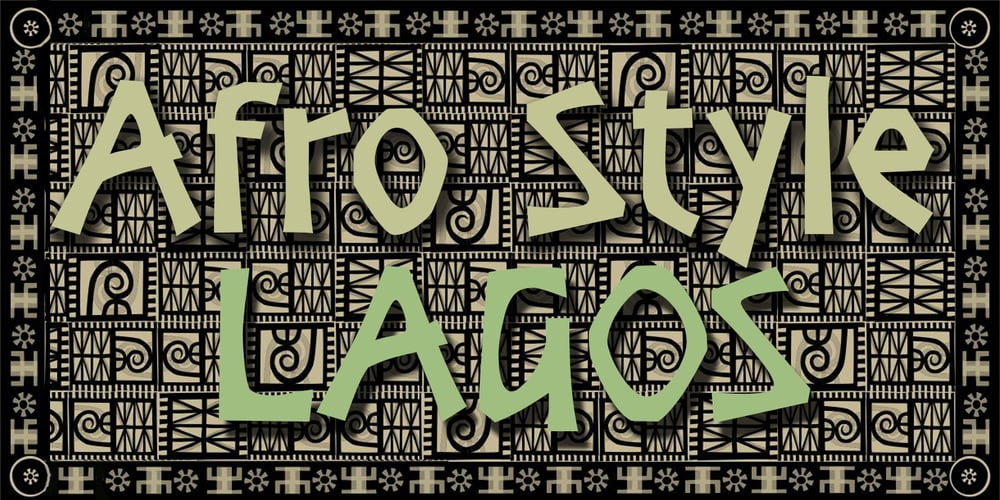
Lagos
Lagos font
Lagos Font Family was designed by Anton Scholtz and published by Scholtz Fonts. Lagos contains 2 styles and family package options. Lagos was created because of the lack of African-inspired fonts that are truly modern without being partly art-deco in origin. I wanted to make a vigorous, sharp-edged font that reflects the energy and dynamism of modern Africa. The lines of the font combine the sharp angularity of African rocks and mountains with the smooth fluidity of Africa’s snake-black rivers. The font is supplied in two styles, Lagos Regular and Lagos Light. Lagos Light is not a simple, mechanical modification of Lagos Regular. The outlines and proportions have been subtly modified to accommodate the lighter weight. Lagos contains a full 256 character set (upper and lower case, punctuation, diacritical characters, special symbols and numerals), in which all characters have been fully kerned and letter-spaced.